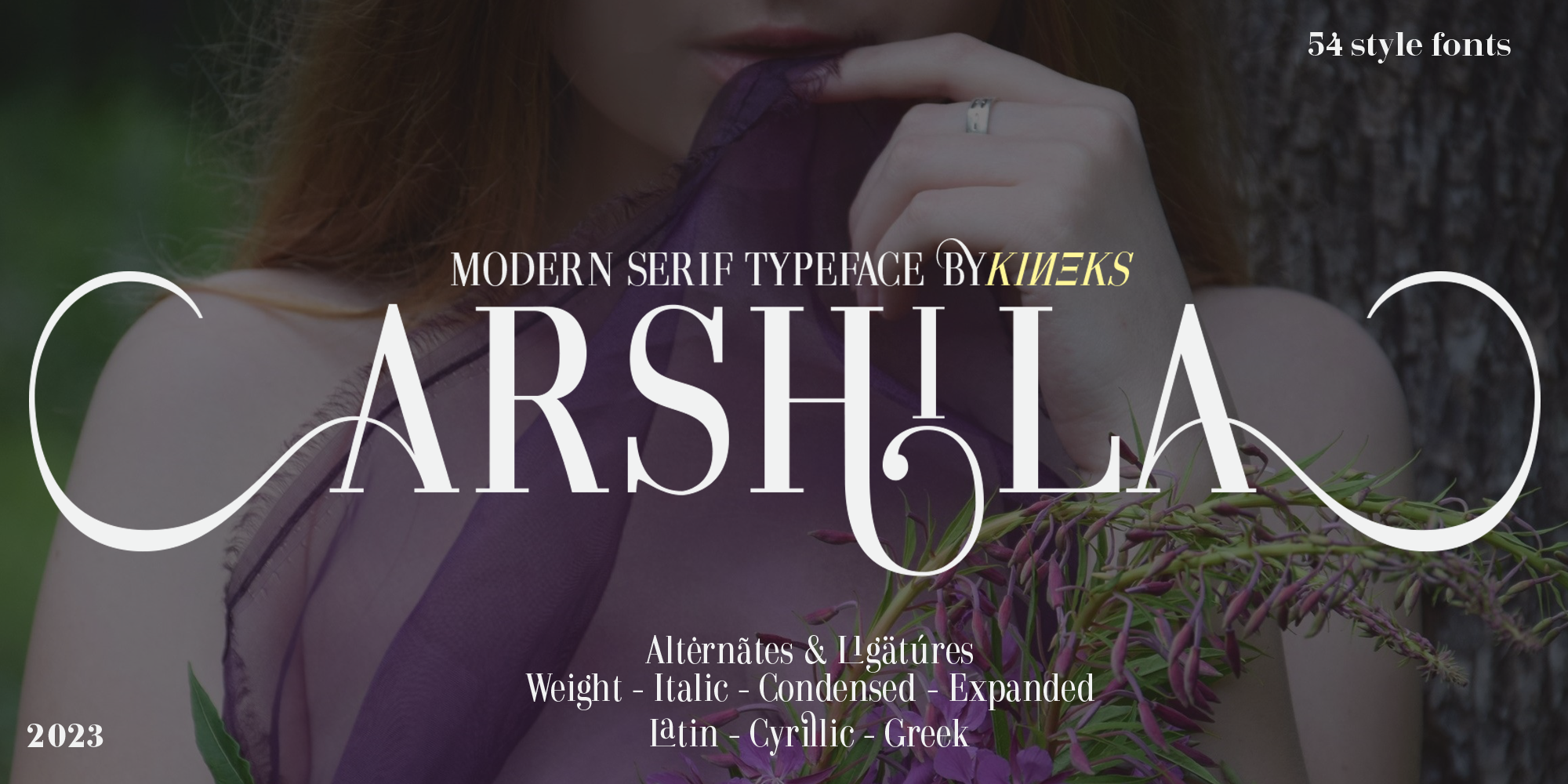
Arshila Font is perfect for elegant feminine branding, luxury beauty campaigns, sophisticated wedding invitations, premium lifestyle magazines, graceful fashion labels, refined jewelry marketing, delicate personal stationery, and upscale boutique communications. This graceful typeface excels in applications requiring feminine elegance and sophisticated charm that captures the essence of refined beauty and graceful sophistication through delicate visual character and elegant appeal.
What makes Arshila Font exciting is its exquisite feminine grace that perfectly captures the essence of sophisticated beauty and elegant refinement through delicately crafted letterforms. The font features graceful character construction with feminine curves and sophisticated proportions that instantly conveys themes of elegance, beauty, and refined sophistication perfect for brands celebrating feminine grace and luxury lifestyle experiences in premium markets.
The Arshila Font family includes elegant weights and graceful variations with feminine styling elements, offering designers comprehensive tools for creating sophisticated beauty compositions. The family provides consistent elegant aesthetic with varying grace levels for versatile luxury communications and feminine branding projects requiring genuine sophisticated character and elegant beauty appeal.
The gracefully crafted letterforms of Arshila Font ensure excellent readability while maximizing elegant charm and feminine sophistication, making it ideal for luxury beauty marketing, elegant stationery designs, and sophisticated brand communications. This refined typeface combines feminine elegance with contemporary technical standards for outstanding performance in modern design environments requiring authentic graceful character and sophisticated feminine presence.